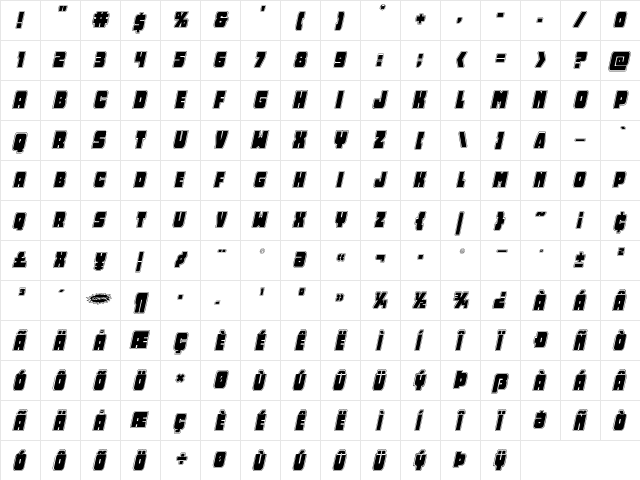
Opus Mundi Academy Italic Italic
Design Context for Opus Mundi Academy Italic Typeface
Opus Mundi Academy Italic is a composed and adaptable typeface that performs quietly and consistently across a wide range of design contexts. The dynamic lean of this cut emphasises speed and emphasis in any layout.
Pro Tip: Try Opus Mundi Academy Italic for annotation and caption copy alongside an upright companion — the contrast in angle creates a dynamic but ordered typographic system.